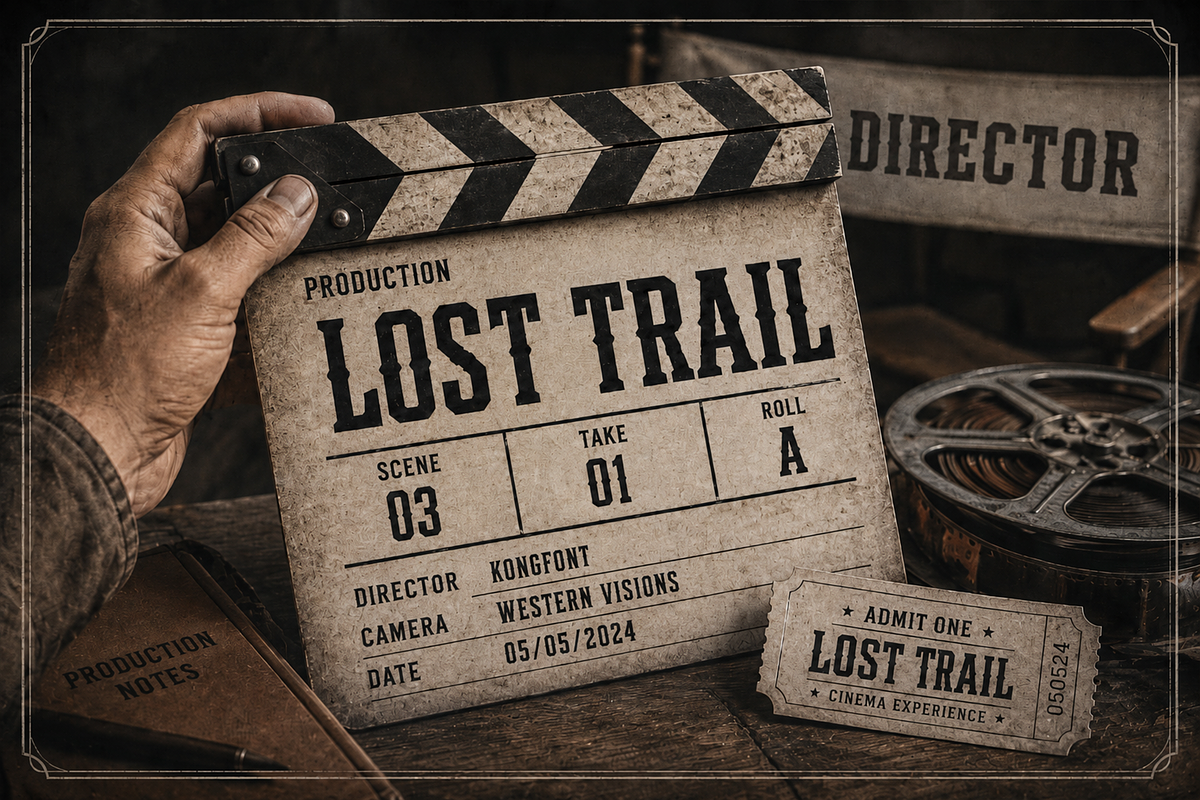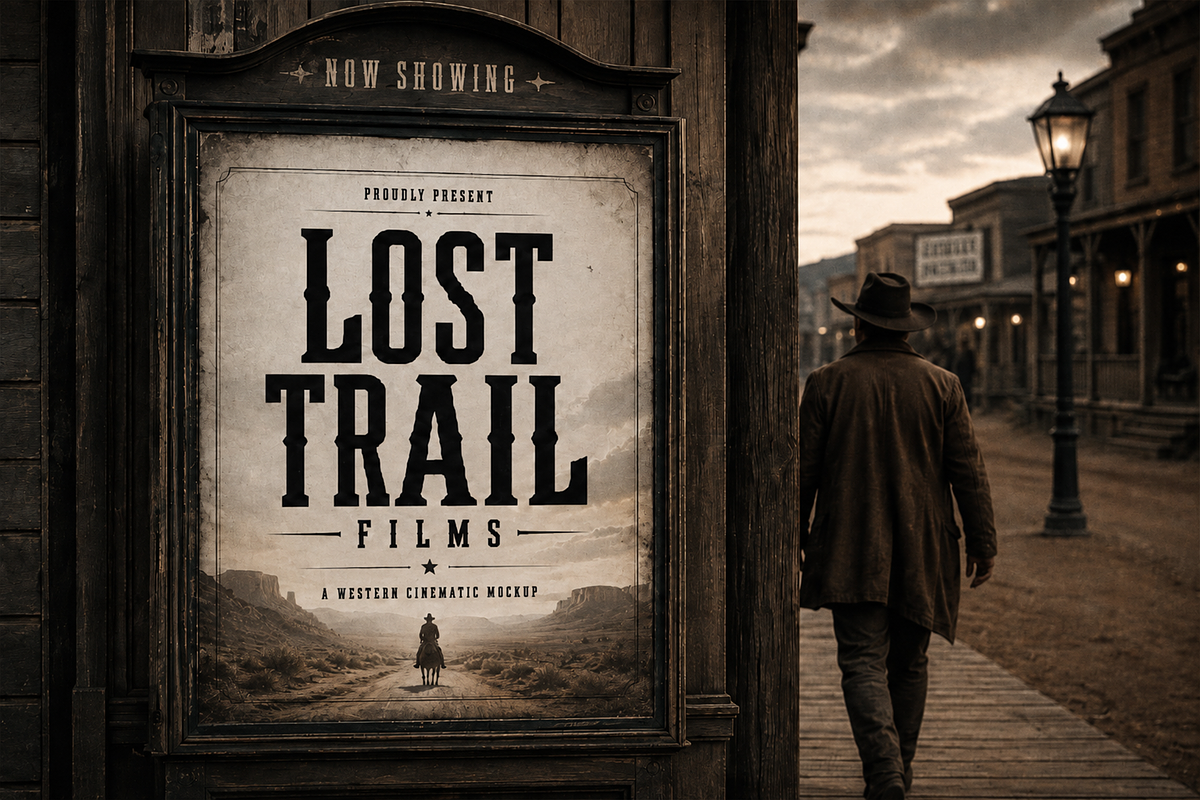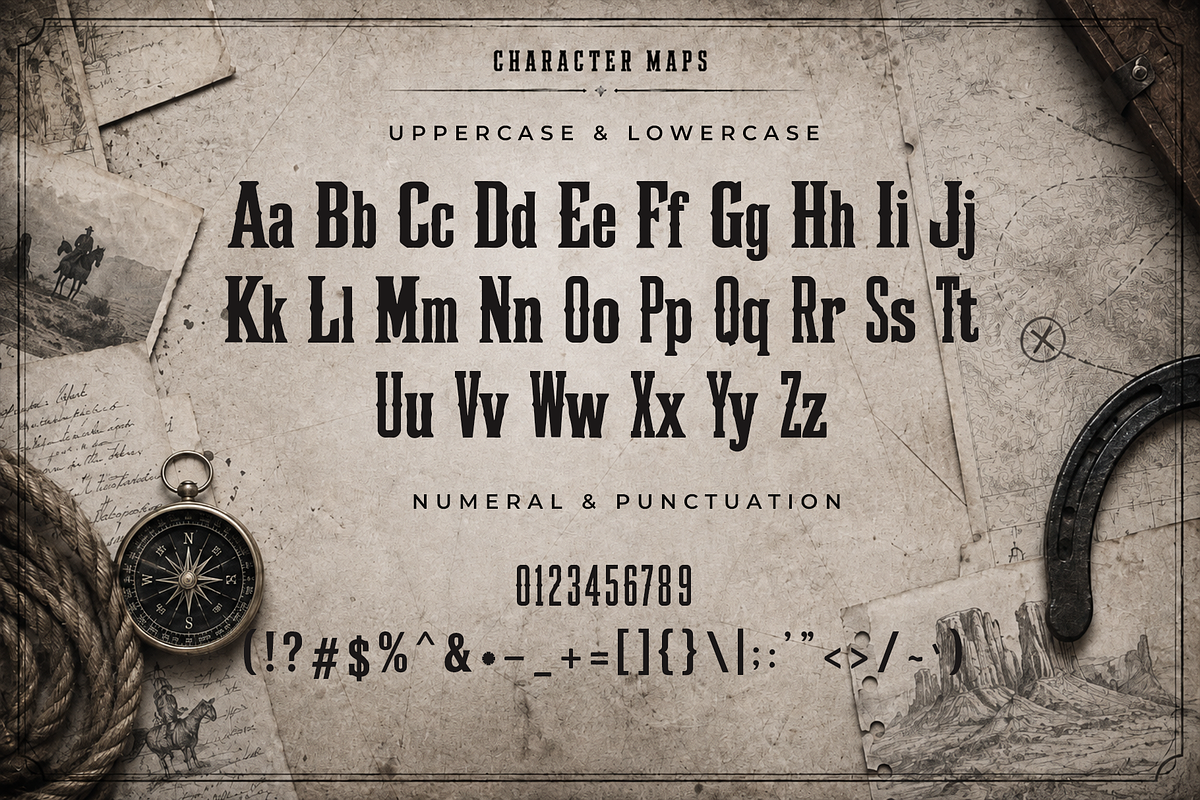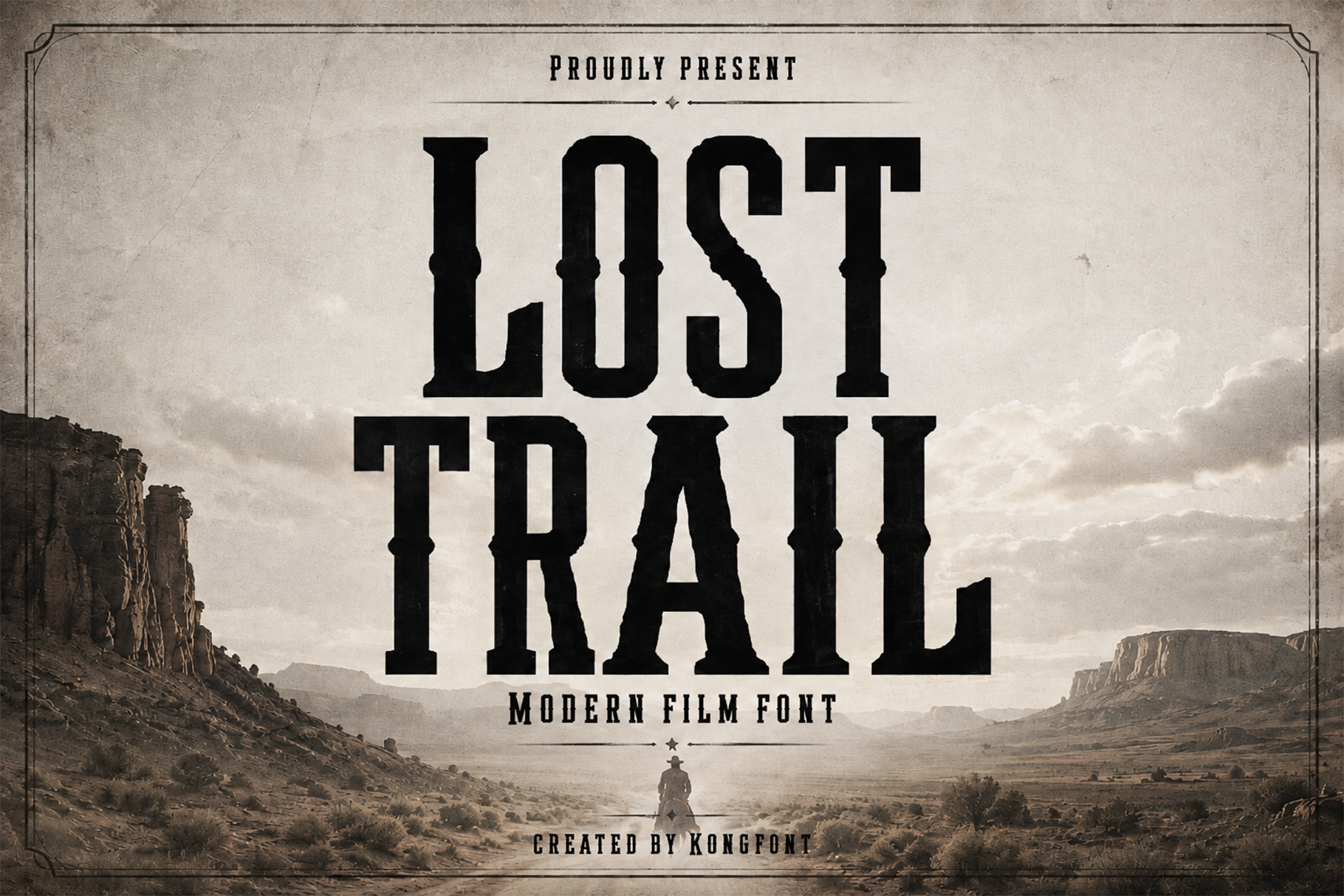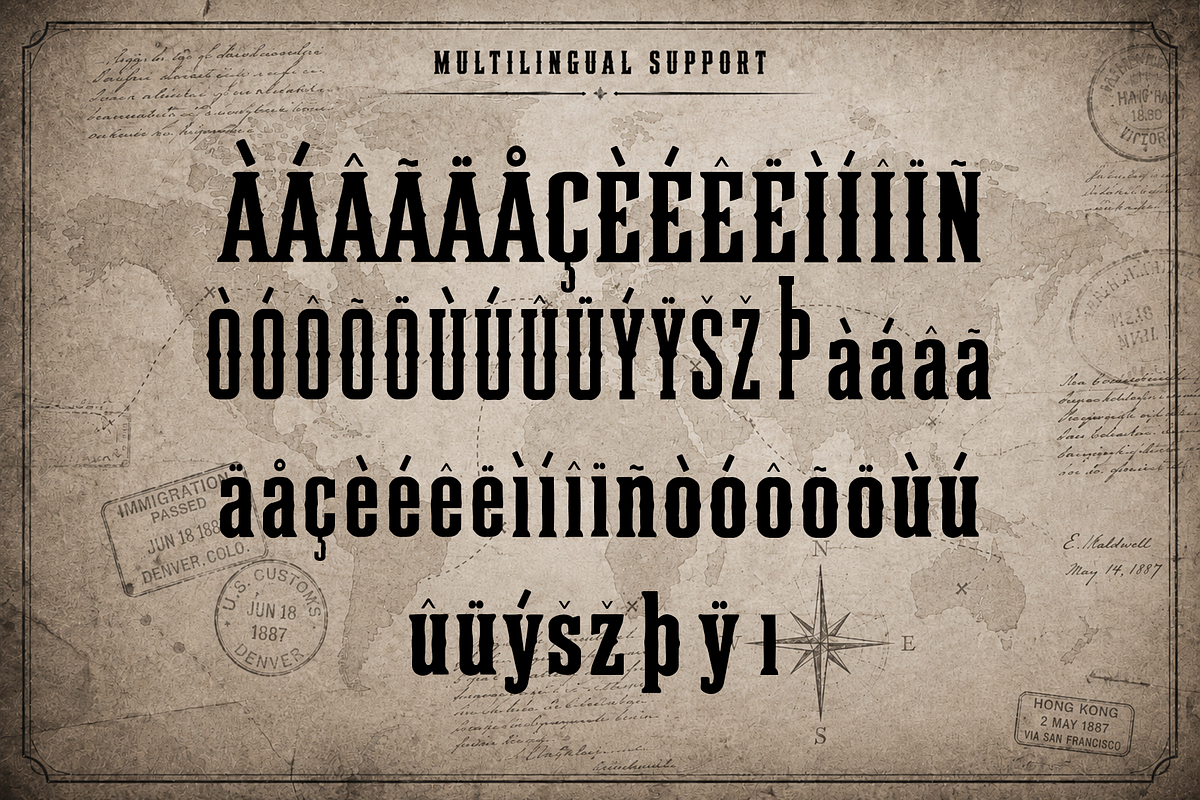
Lost Trail - Western Cinematic Font
Lost Trail - Western Cinematic Display Font
Meet "Lost Trail," a bold western cinematic display font inspired by classic frontier posters, desert landscapes, vintage film titles, and old American typography. Featuring tall condensed letterforms, strong slab style details, and a rugged visual structure, Lost Trail delivers a powerful character that feels adventurous, dramatic, and timeless.
Lost Trail works especially well for cowboy themes, western films, country music artwork, outdoor brands, ranch identities, adventure projects, vintage signage, whiskey style branding concepts, merchandise, and rustic promotional materials. Its distinctive silhouette brings the atmosphere of dusty trails, frontier towns, and classic western storytelling into modern design.